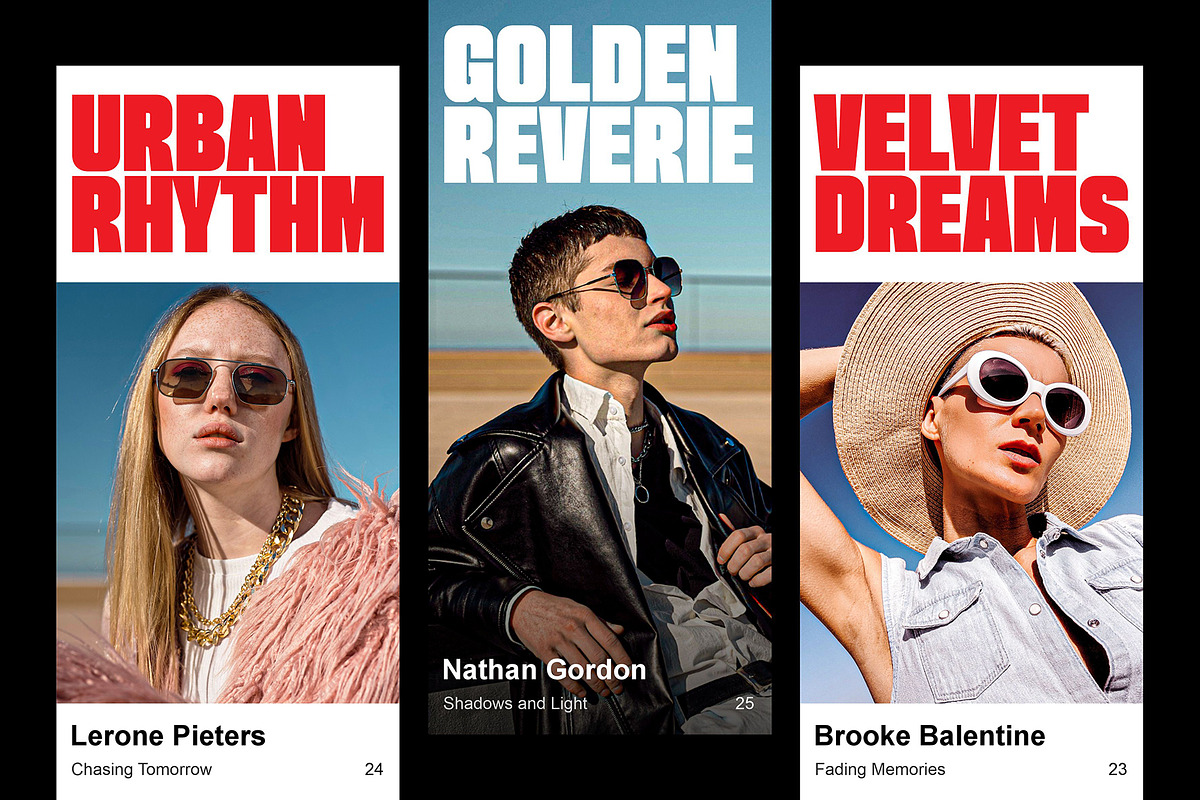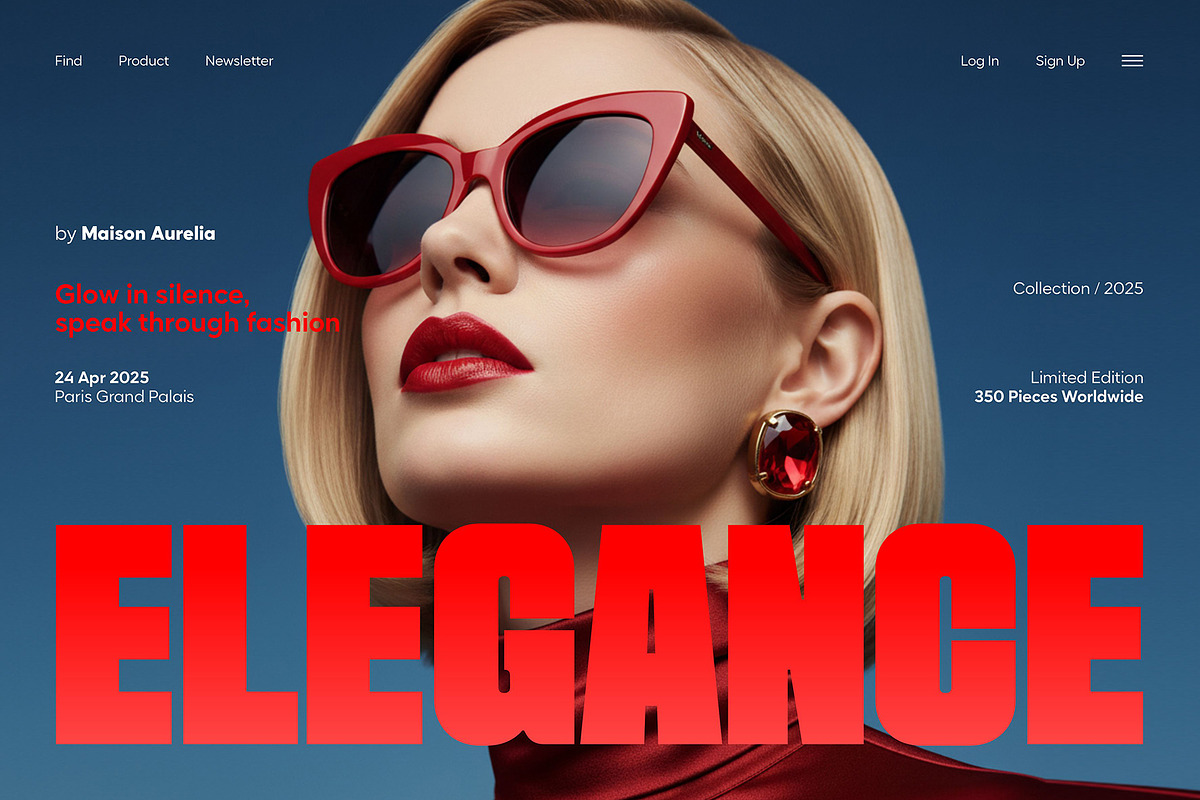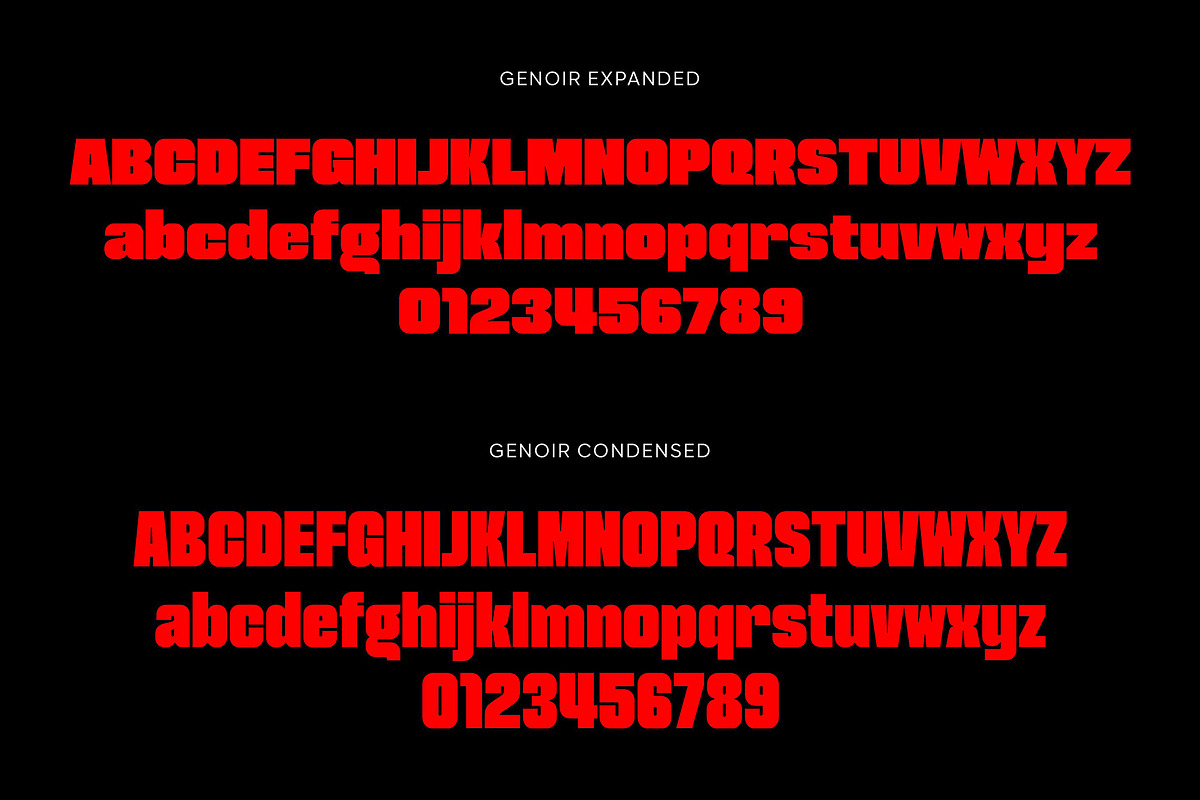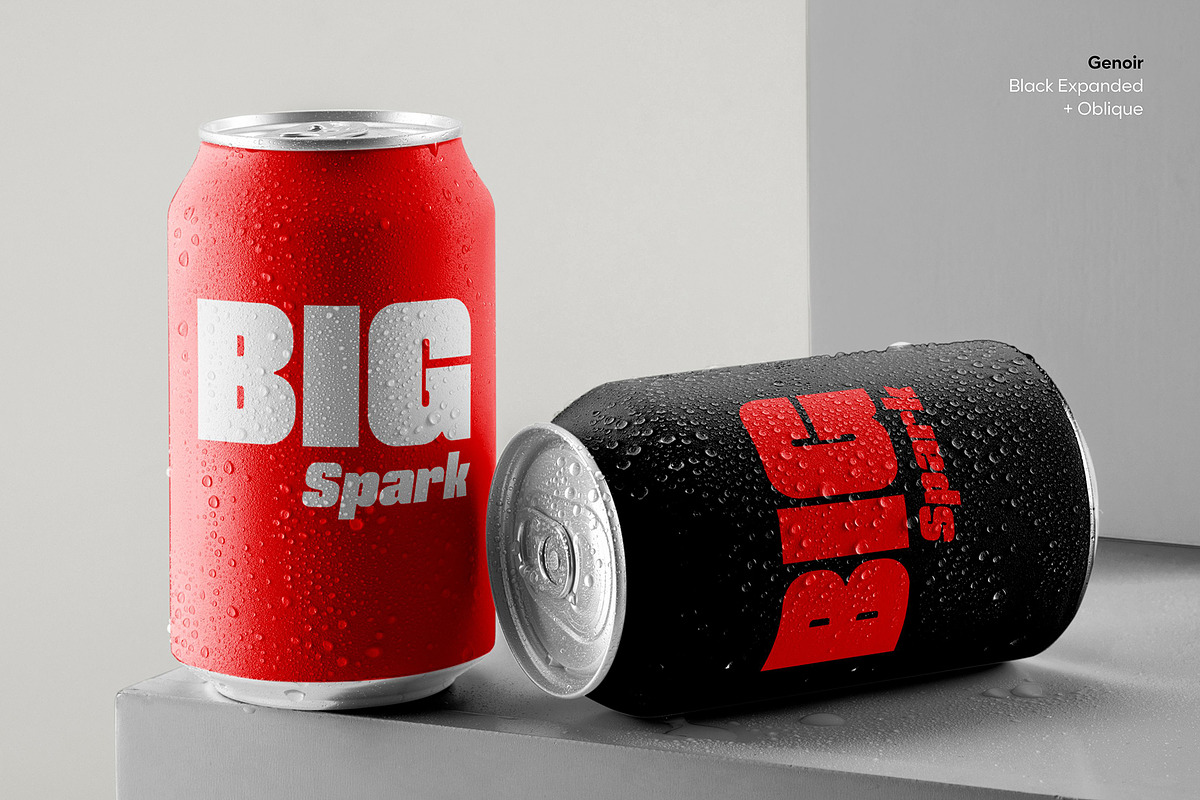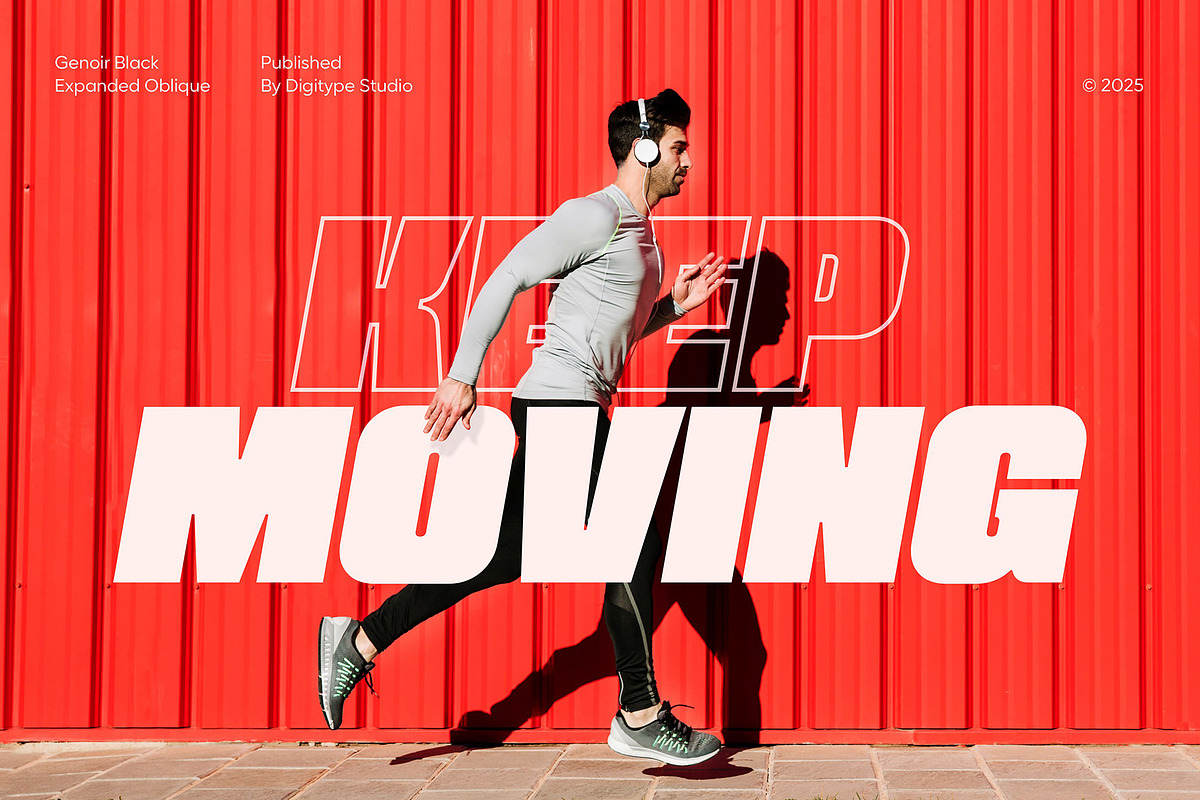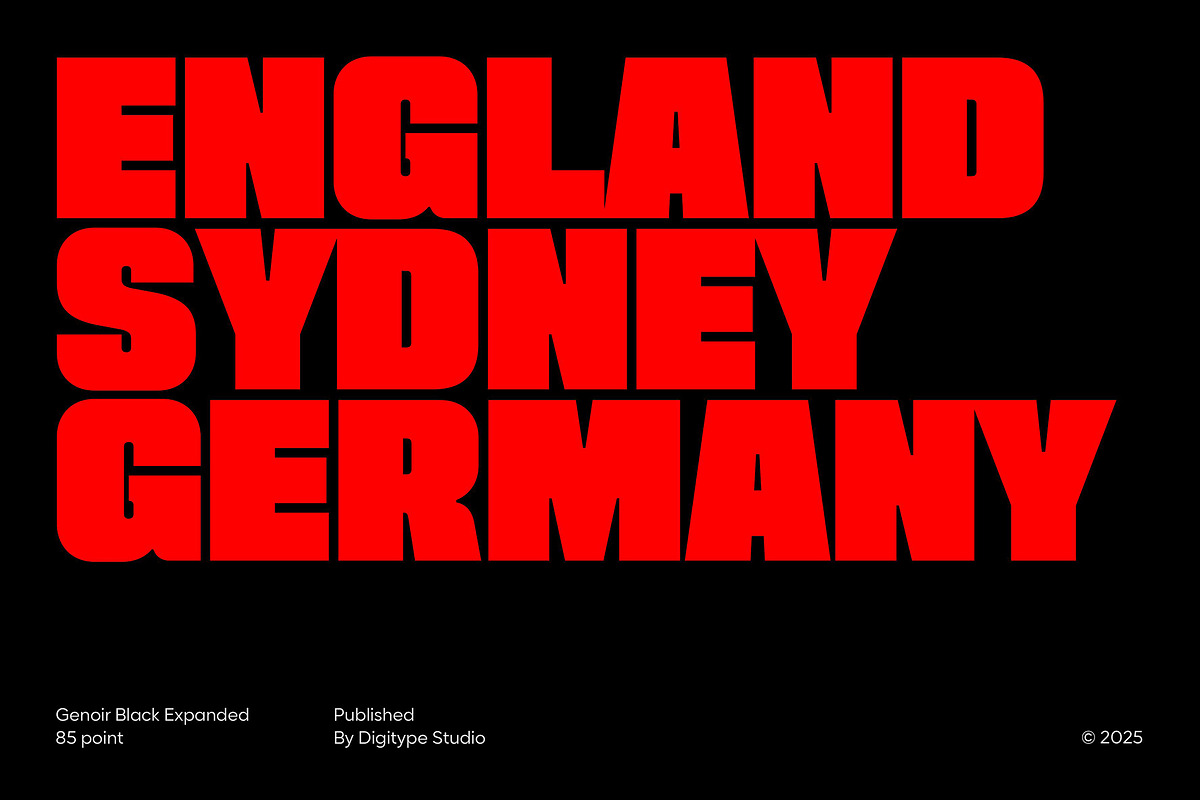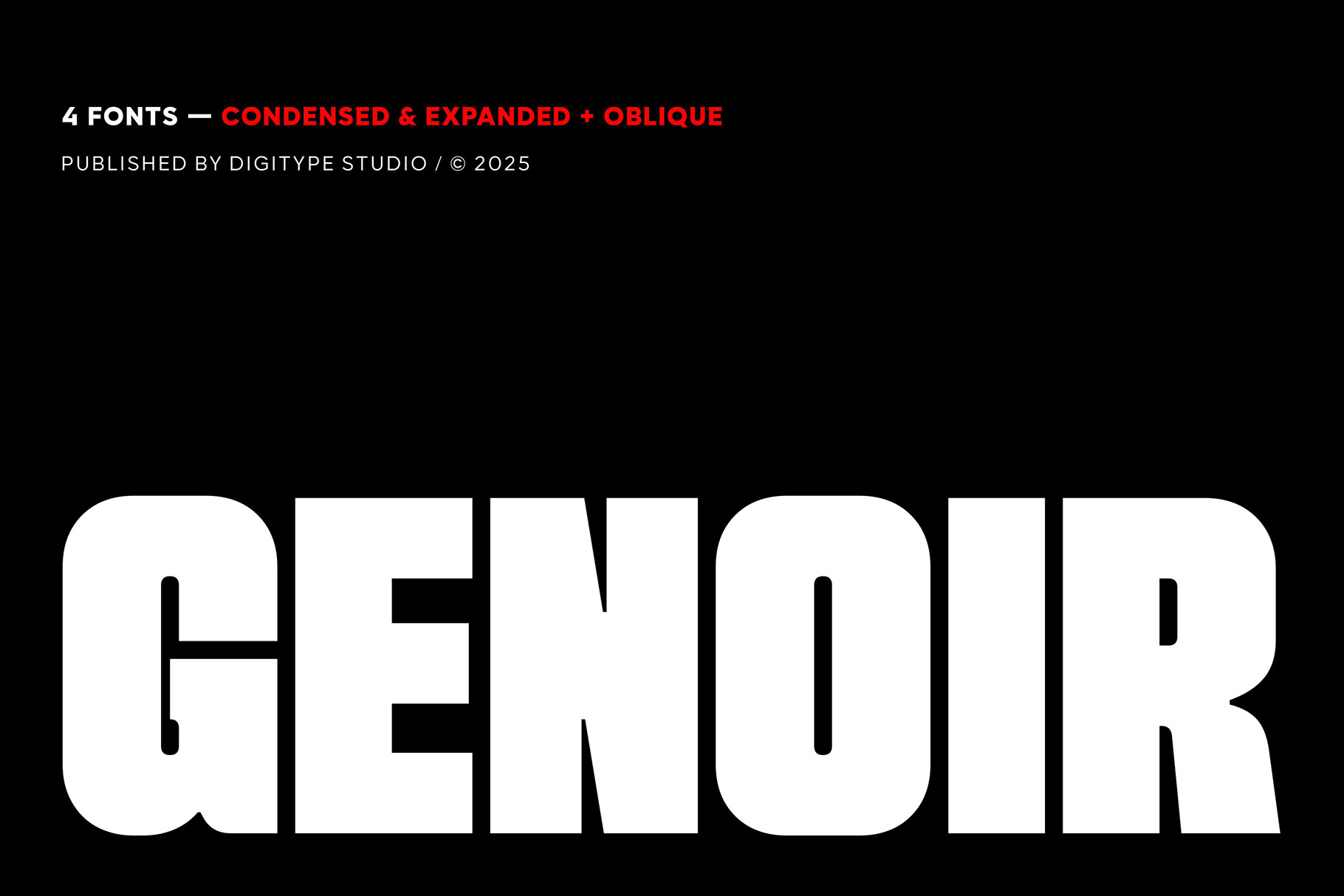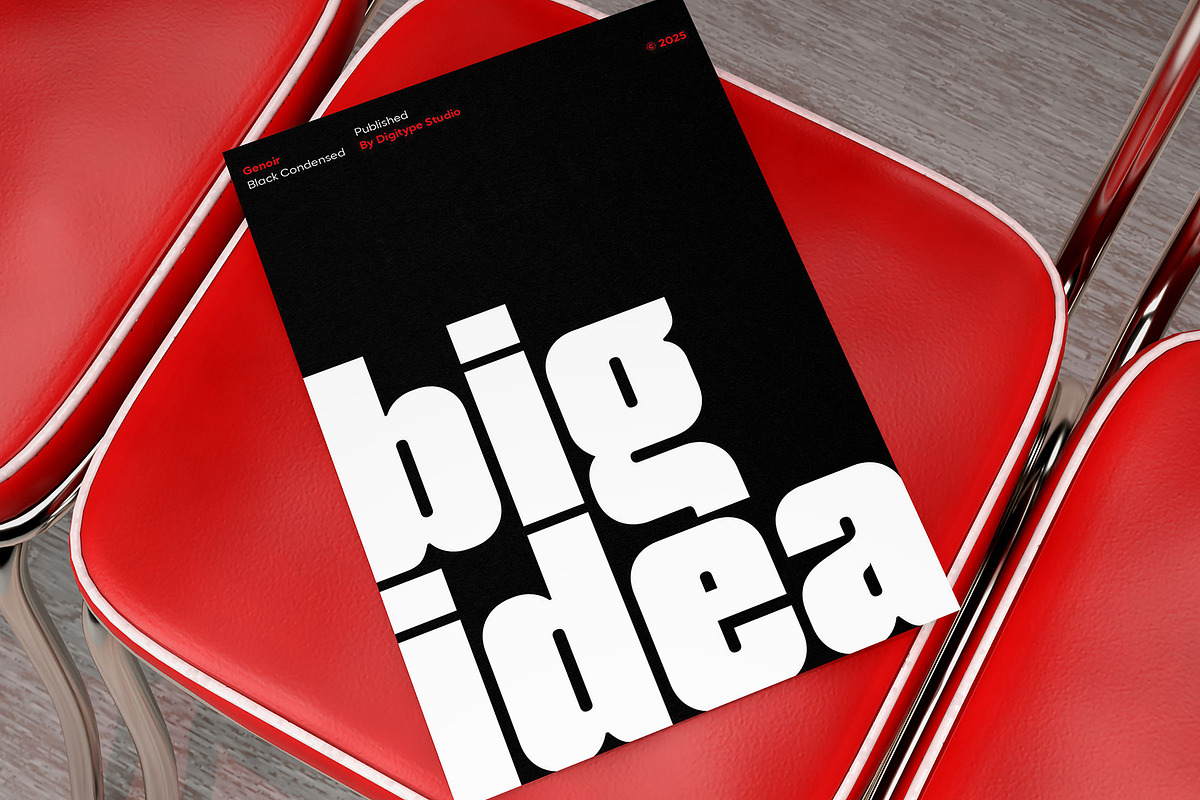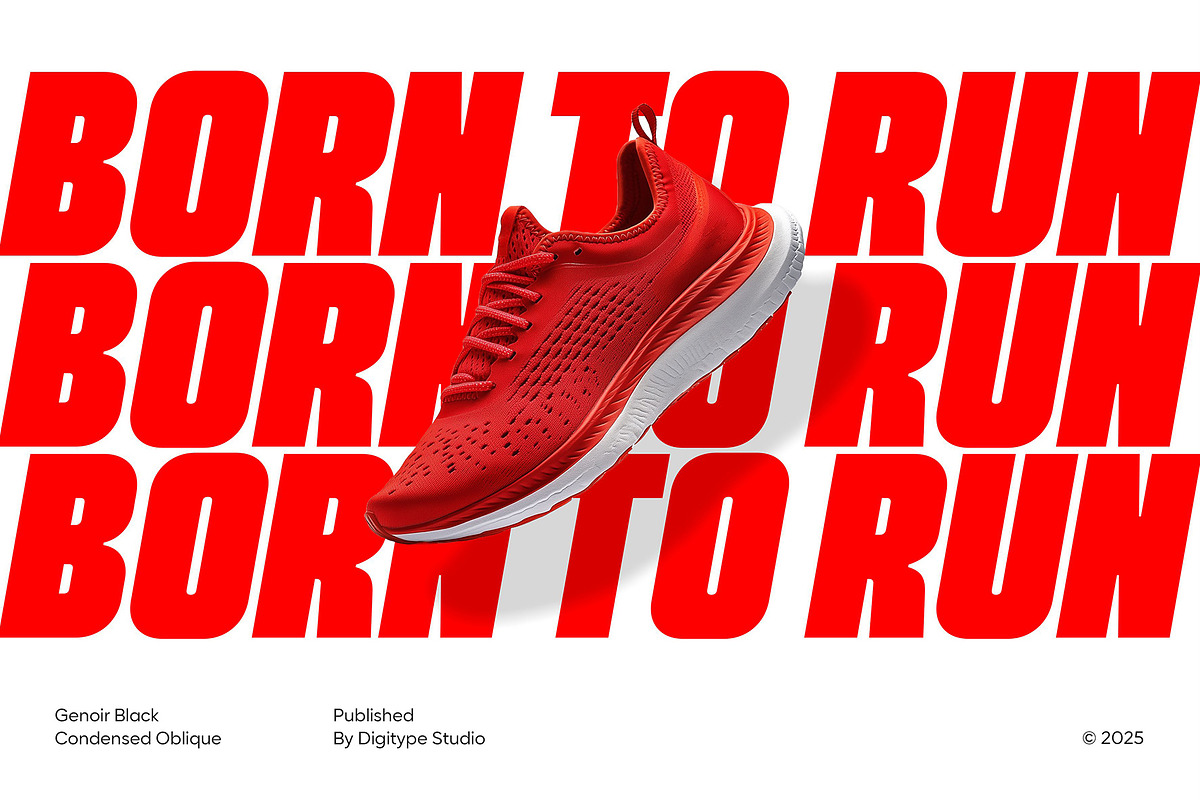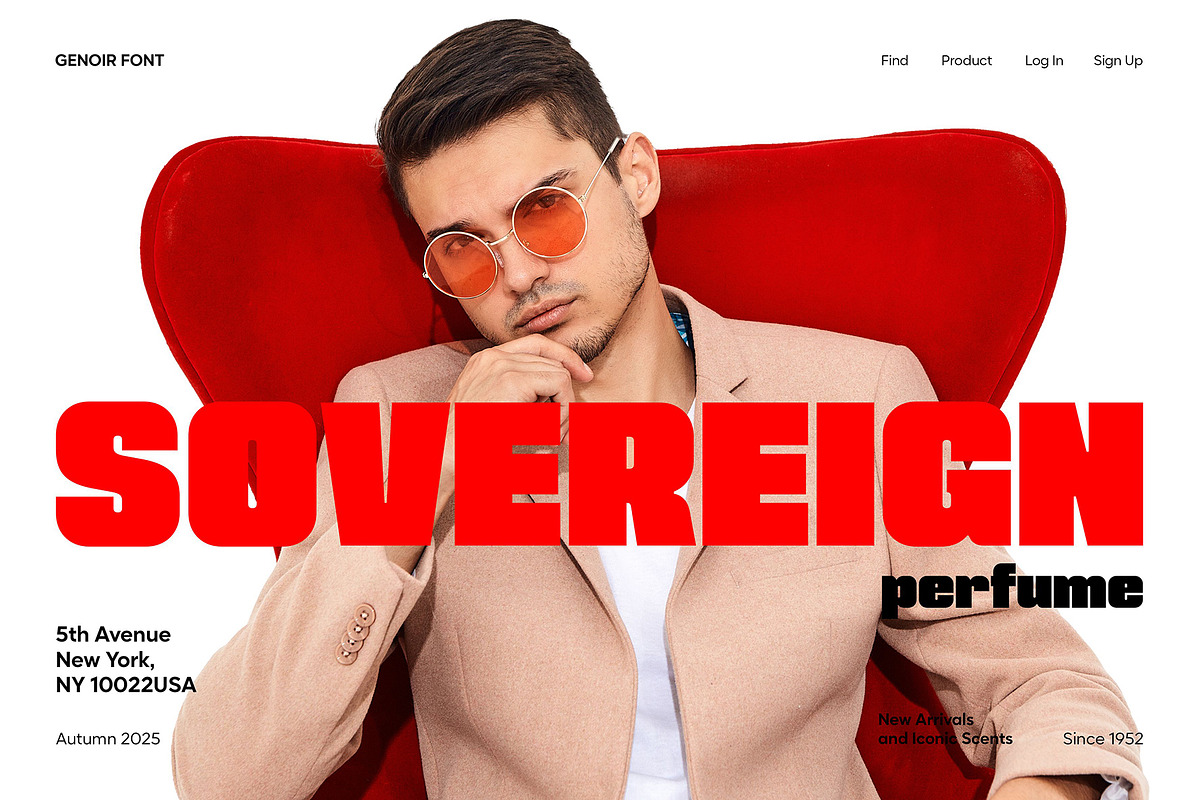
Genoir – Bold Display Font Family
Genoir is a modern font family with a strong, expressive, and bold personality. Designed to deliver an elegant yet powerful impression, Genoir is made to stand out and capture attention in any design project.
This family includes 4 styles: Condensed and Expanded, each with its own Oblique version. With this flexibility, Genoir is perfect for posters, magazine editorials, fashion branding, product packaging, and digital design bringing a distinctive character that makes your visuals unforgettable.